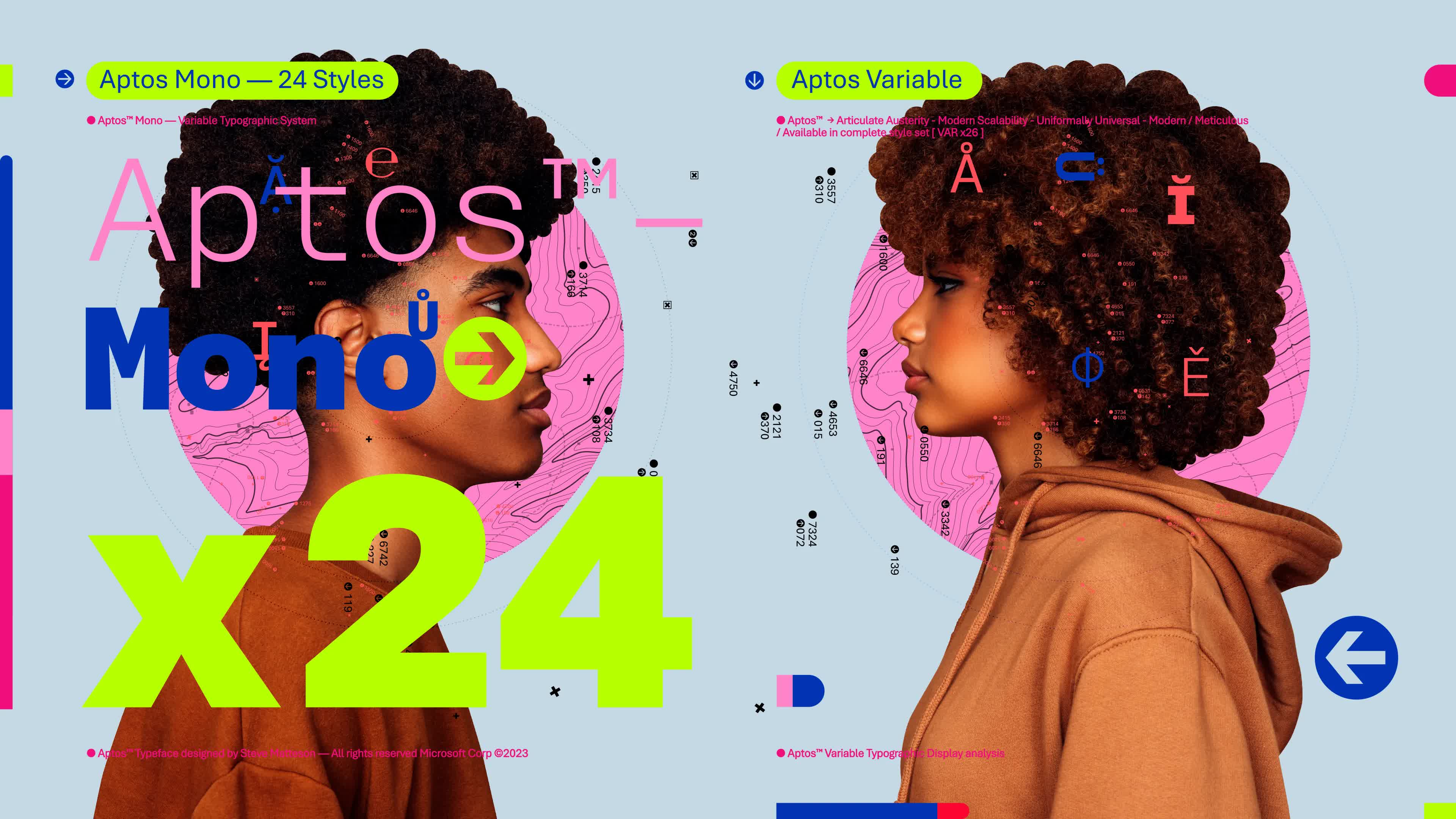
Download Aptos Font - The download for aptos yesterday. At point size 11 @ 96dpi (technically 116 physical dpi), i'm seeing: Hit the little cloud icon, beside the font you want, to download it locally, for instance, the aptos ones (with all its variants), go to the c:\users\\appdata\local\microsoft\fontcache\4\cloudfonts\. [steve matteson] renamed the typeface he designed from bierstadt to aptos after his favorite unincorporated town in santa cruz, california, whose widely ranging landscape and climate. According to this, the aptos font will be available for download. We want to keep a standard font across the organization, but it appears aptos is only an application font, and not a system font (available outside office apps, like adobe acrobat). After reading it in outlook emails for ~2 months, i changed my default font back to calibri.
Introducing Aptos, Microsoft's revolutionary default typeface
After reading it in outlook emails for ~2 months, i changed my default font back to calibri. We want to keep a standard font across the organization, but it appears aptos is only an application font, and not a system font (available outside office apps, like adobe acrobat). [steve matteson] renamed the typeface he designed from bierstadt to aptos after.
We want to keep a standard font across the organization, but it appears aptos is only an application font, and not a system font (available outside office apps, like adobe acrobat). According to this, the aptos font will be available for download. [steve matteson] renamed the typeface he designed from bierstadt to aptos after his favorite unincorporated town in santa.
The download for aptos yesterday. At point size 11 @ 96dpi (technically 116 physical dpi), i'm seeing: After reading it in outlook emails for ~2 months, i changed my default font back to calibri. According to this, the aptos font will be available for download. [steve matteson] renamed the typeface he designed from bierstadt to aptos after his favorite unincorporated.
Meet Microsoft Office’s new default font Aptos Review Radar
[steve matteson] renamed the typeface he designed from bierstadt to aptos after his favorite unincorporated town in santa cruz, california, whose widely ranging landscape and climate. According to this, the aptos font will be available for download. After reading it in outlook emails for ~2 months, i changed my default font back to calibri. The download for aptos yesterday. Hit.
[steve matteson] renamed the typeface he designed from bierstadt to aptos after his favorite unincorporated town in santa cruz, california, whose widely ranging landscape and climate. Hit the little cloud icon, beside the font you want, to download it locally, for instance, the aptos ones (with all its variants), go to the c:\users\\appdata\local\microsoft\fontcache\4\cloudfonts\. According to this, the aptos font will.
New Default Font, Aptos, In Microsoft 365 And Word Office, 59 OFF
After reading it in outlook emails for ~2 months, i changed my default font back to calibri. At point size 11 @ 96dpi (technically 116 physical dpi), i'm seeing: We want to keep a standard font across the organization, but it appears aptos is only an application font, and not a system font (available outside office apps, like adobe acrobat)..
Aptos inspires Microsoft’s new default font Santa Cruz Sentinel
After reading it in outlook emails for ~2 months, i changed my default font back to calibri. [steve matteson] renamed the typeface he designed from bierstadt to aptos after his favorite unincorporated town in santa cruz, california, whose widely ranging landscape and climate. The download for aptos yesterday. At point size 11 @ 96dpi (technically 116 physical dpi), i'm seeing:.
Aptos Unveiled Microsoft's New Typeface InDepth Designer Review
The download for aptos yesterday. [steve matteson] renamed the typeface he designed from bierstadt to aptos after his favorite unincorporated town in santa cruz, california, whose widely ranging landscape and climate. We want to keep a standard font across the organization, but it appears aptos is only an application font, and not a system font (available outside office apps, like.
After Reading It In Outlook Emails For ~2 Months, I Changed My Default Font Back To Calibri.
[steve matteson] renamed the typeface he designed from bierstadt to aptos after his favorite unincorporated town in santa cruz, california, whose widely ranging landscape and climate.